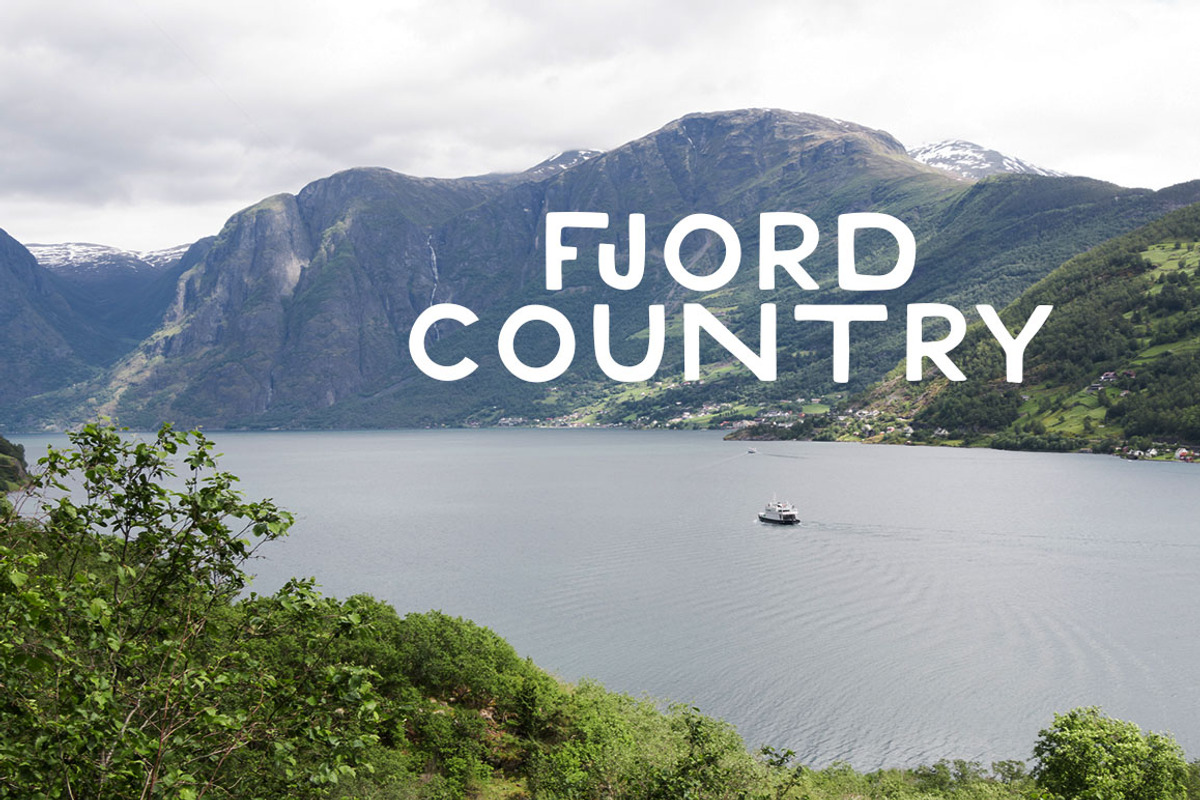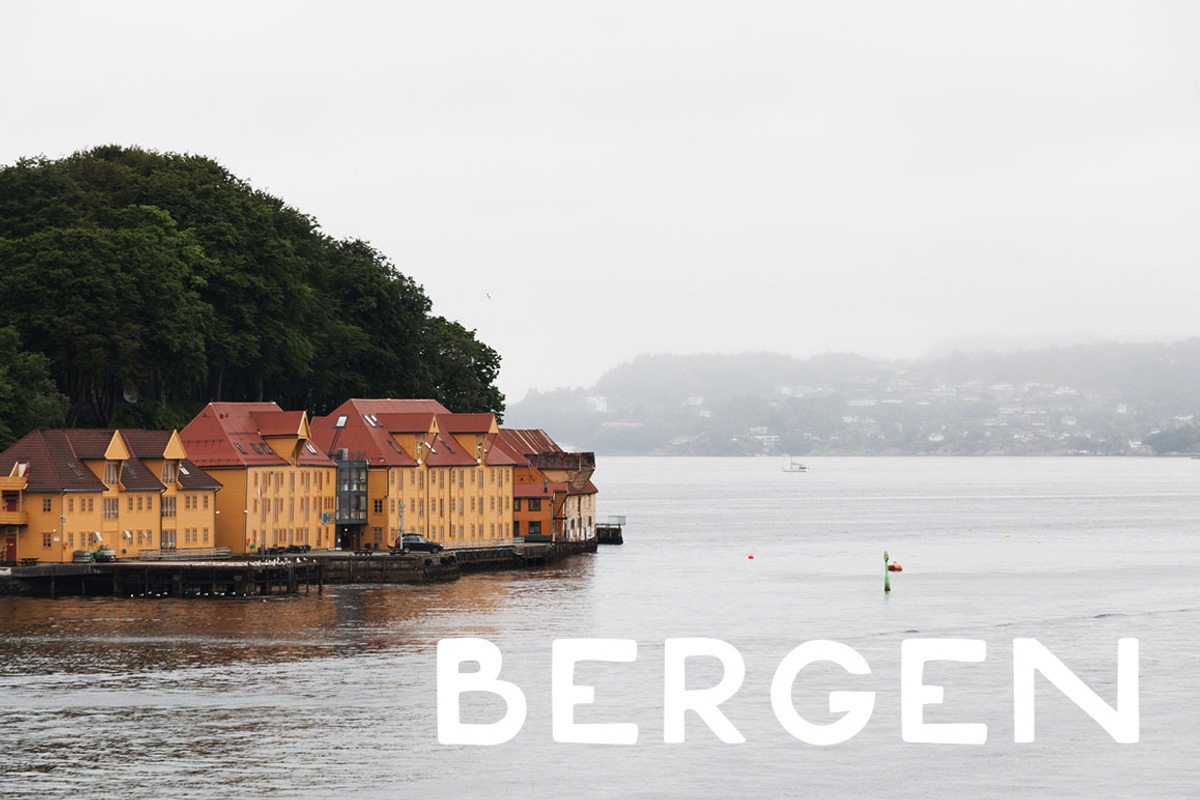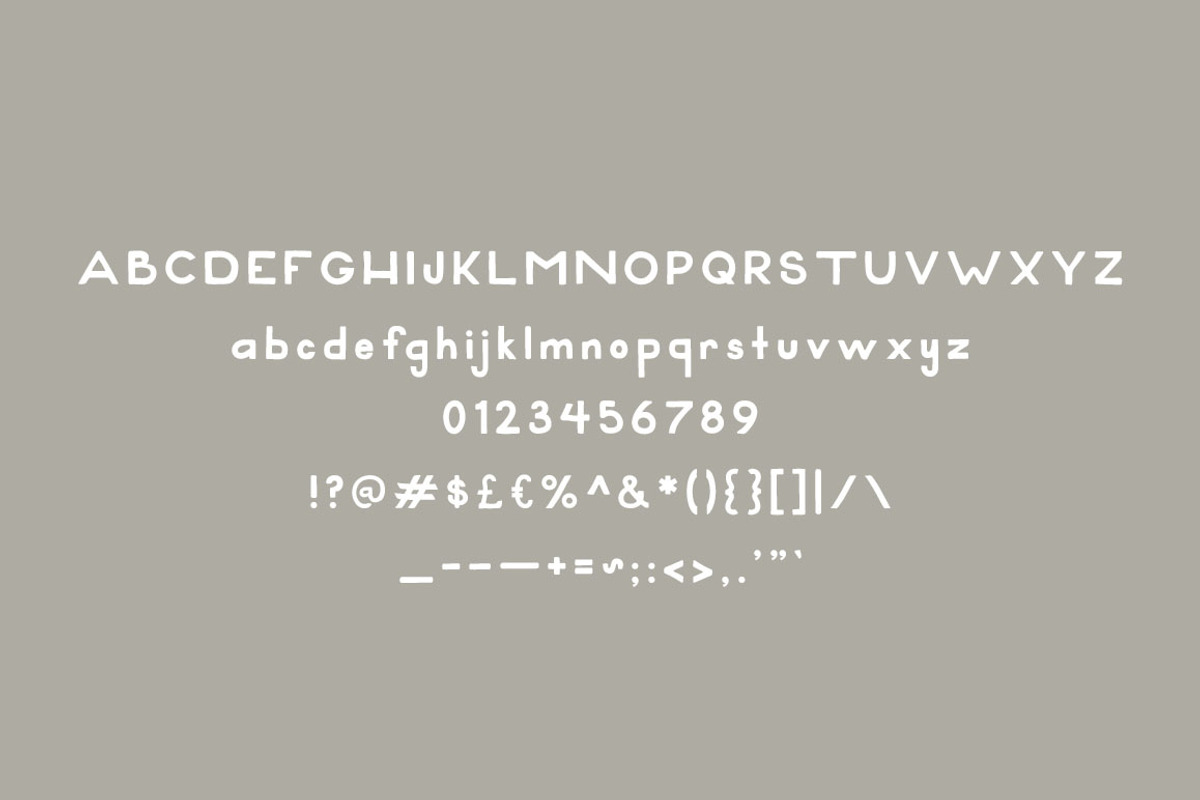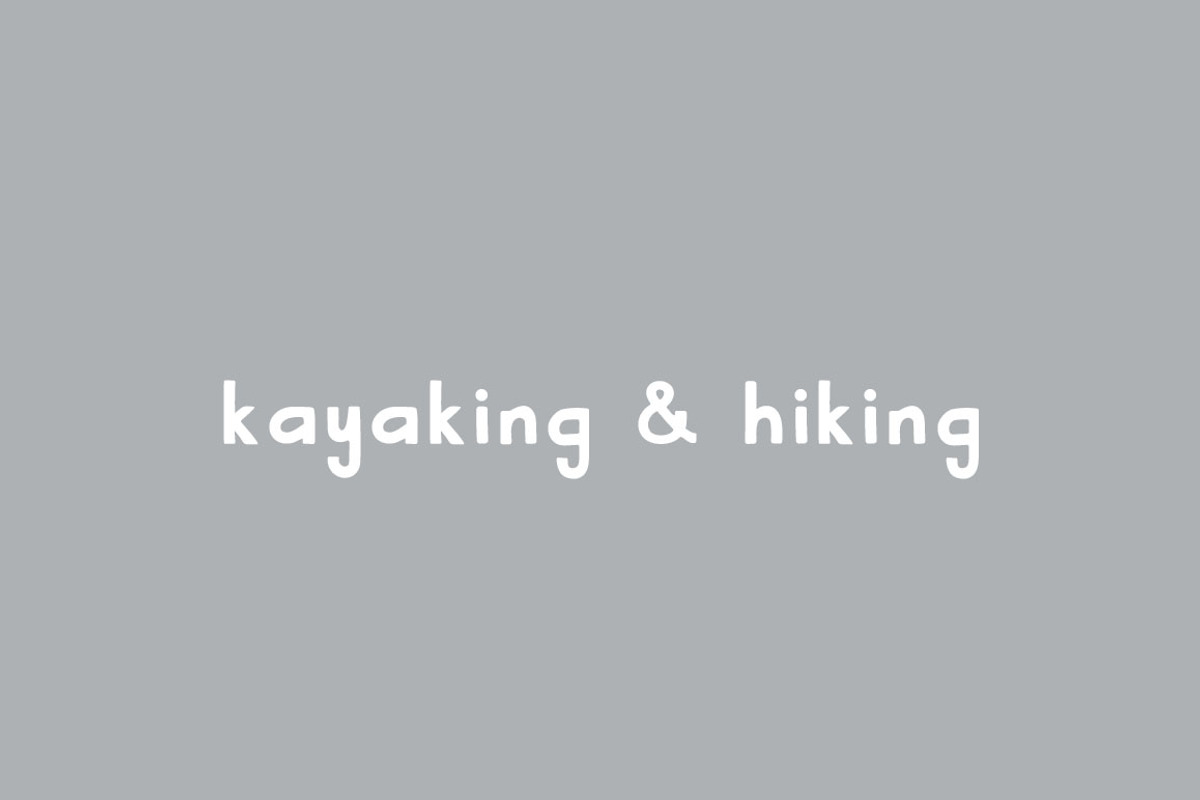
Norway: A Hand-Lettered Font
Norway was inspired by a June trip to Bergen and Fjord Country where I enjoyed a couple days in the city before hiking and kayaking through the gorgeous fjords. Being immersed in Norway's natural beauty and simplicity, inspired me to design a font that embodied both elements. With its organic lines and bold simplistic shapes, this font works best as a header font or for smaller bodies of text. It is perfect for projects that need natural-looking fonts like blog posts, social graphics, event posters, or a logo.